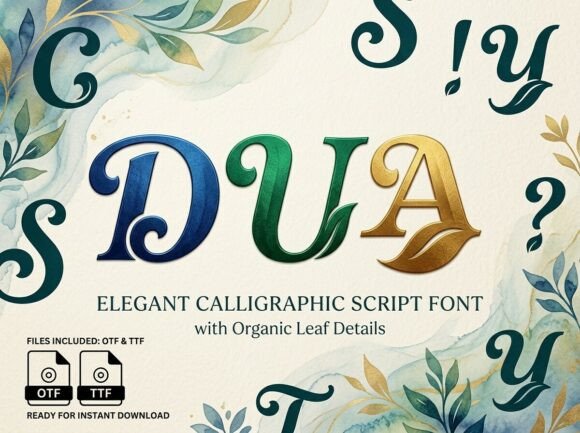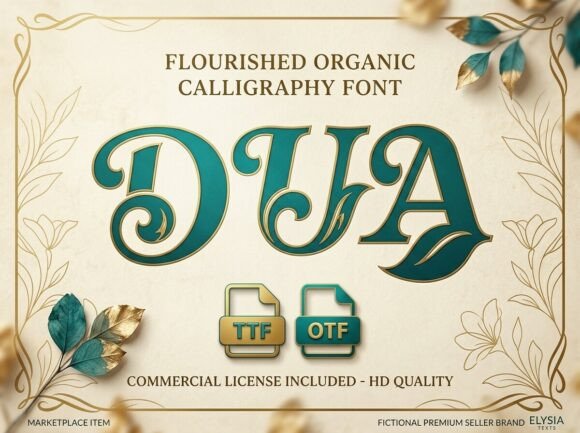
Introducing Dua Font: Elevate Your Designs with Organic Luxury
In the world of typography, a new release is always exciting news, especially when it brings a fresh perspective to the table. Dua Font is here to revolutionize your design game with its unique blend of elegance, sustainability, and luxury. This stunning botanical serif script is not just a font; it’s an experience that breathes life into your designs, making it perfect for those who seek to make a statement with their work.
The Essence of Dua Font
Dua Font is characterized by its breathtaking gold-foil texture and graceful, leafy terminals. This combination creates a striking balance between structured serif authority and fluid script movement, giving your designs a sophisticated yet organic feel. The gold-foil texture adds a touch of opulence, while the leafy terminals bring a sense of natural elegance, making Dua a versatile choice for various design applications.
Perfect for Eco-Luxury Branding
In today’s market, eco-luxury branding is more than just a trend; it’s a statement of values. Dua Font is designed to cater to this growing demand, offering a typographic solution that embodies the essence of sustainable luxury. Its elegant and refined aesthetic makes it an ideal choice for brands looking to convey a sense of high-end quality while emphasizing their commitment to the environment.
Ideal for High-End Bridal Stationery
For those in the bridal industry, creating stationery that exudes elegance and sophistication is paramount. Dua Font, with its graceful lines and luxurious texture, is the perfect fit. It adds a touch of class and refinement to wedding invitations, save-the-date cards, and other stationery, making it a memorable and cherished keepsake for couples and their guests.
Organic Skincare Packaging and Wellness Editorial Layouts
The organic skincare and wellness industries are built on the principles of purity, sustainability, and natural beauty. Dua Font aligns perfectly with these values, offering a typographic solution that resonates with the ethos of these brands. For packaging and editorial layouts, Dua brings a level of sophistication and elegance, communicating a commitment to quality and natural ingredients.
Design Features and Benefits
- Gold-Foil Texture: Adds a luxurious touch to your designs.
- Leafy Terminals: Provides a graceful and organic feel.
- Deep Teal Marble Backdrop: Enhances the overall aesthetic with a sophisticated and elegant look.
- Versatility: Suitable for a wide range of design applications, from branding to editorial layouts.
Why Choose Dua Font?
Dua Font is more than just a typographic choice; it’s a design statement. By choosing Dua, you’re opting for a font that understands the importance of balancing luxury with sustainability. Its unique features make it stand out in the world of typography, offering designers and crafters a tool to elevate their work and communicate their values effectively.
Dua Font represents a new chapter in the evolution of typography, one that marries elegance with sustainability. Whether you’re a designer looking to enhance your portfolio, a crafter seeking to create unique products, or a brand aiming to redefine your identity, Dua Font offers a world of possibilities. Experience the organic luxury that Dua brings to your designs and discover a new level of sophistication and elegance.